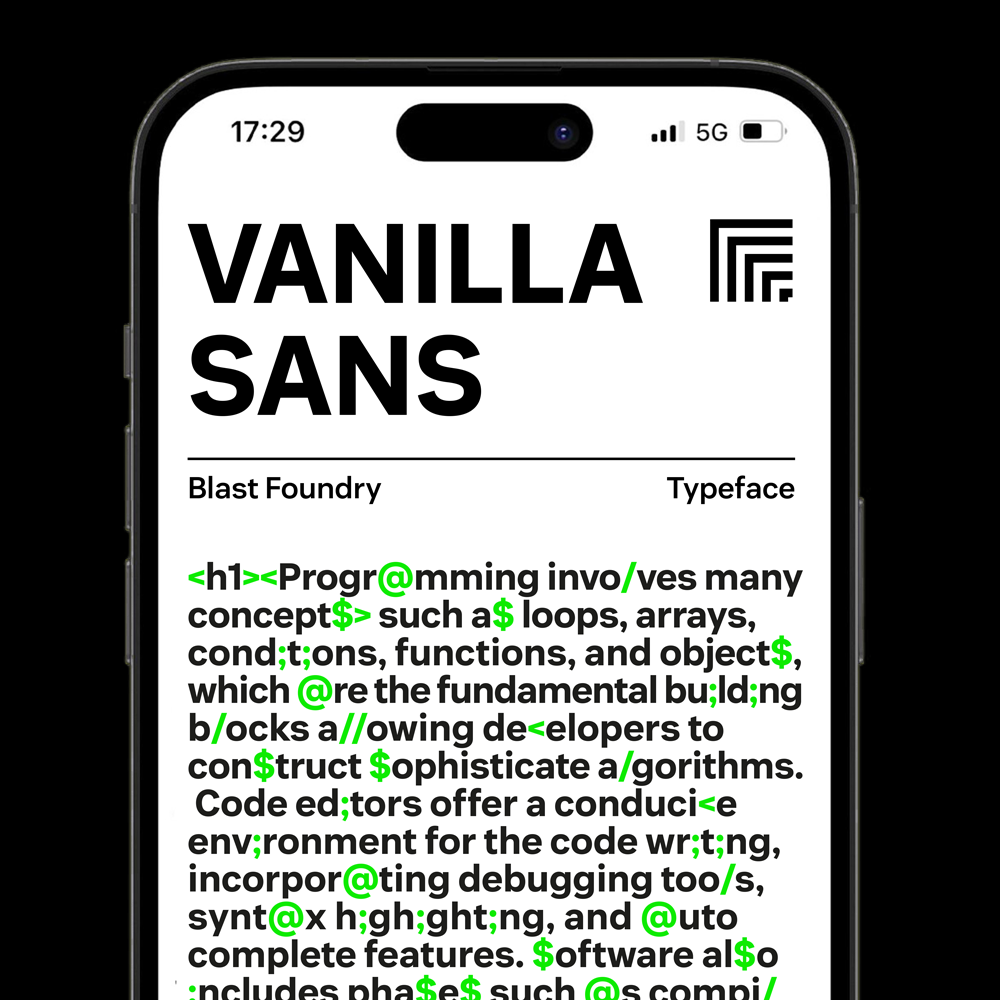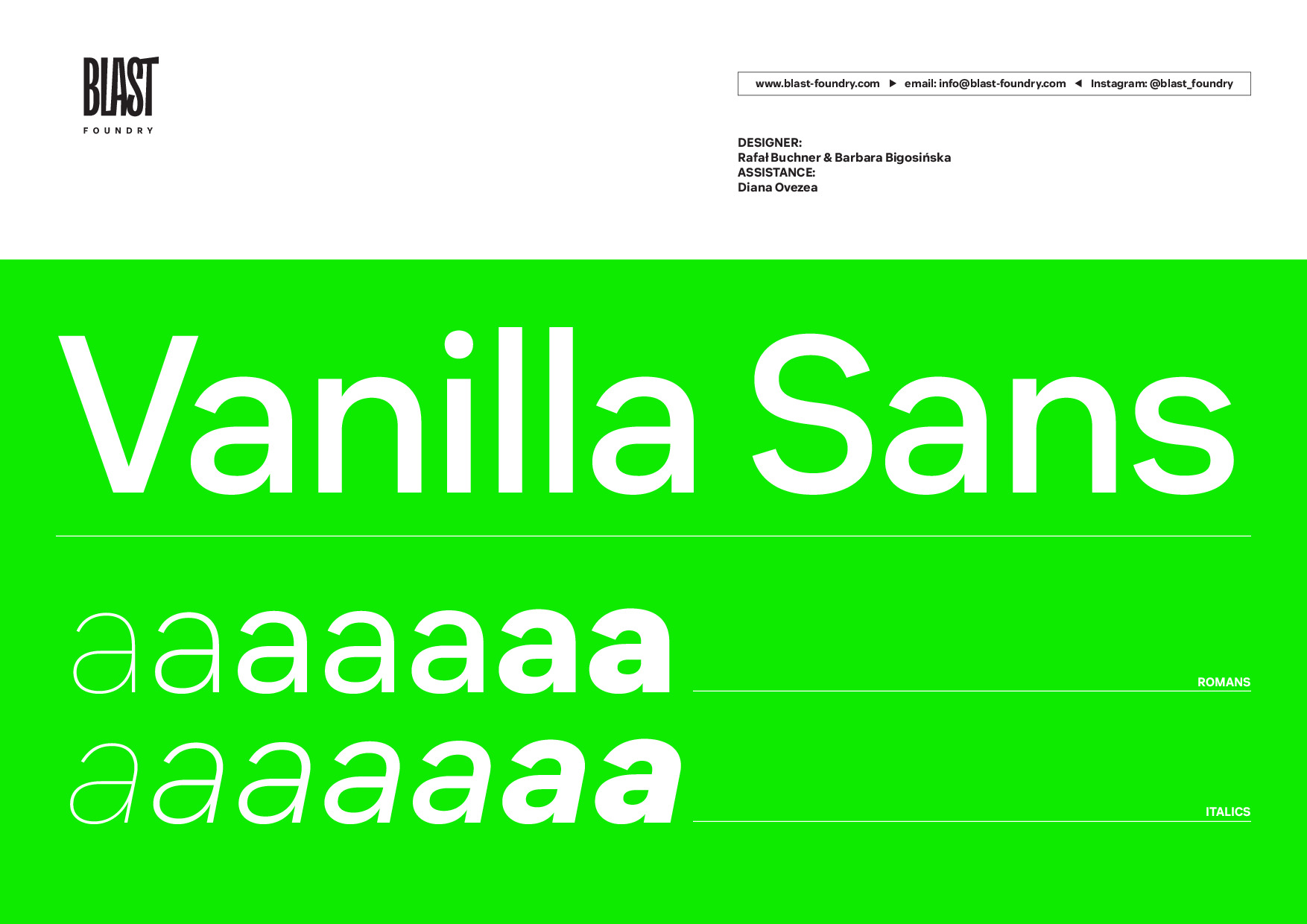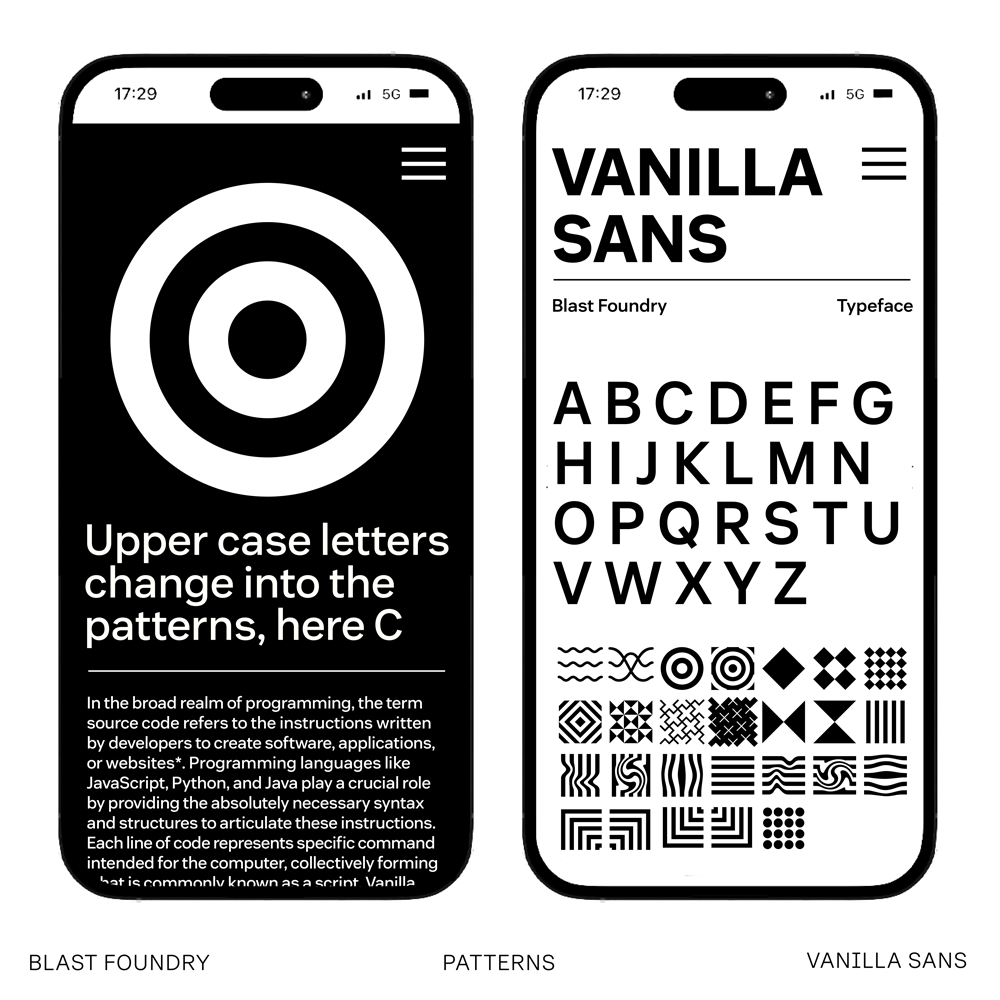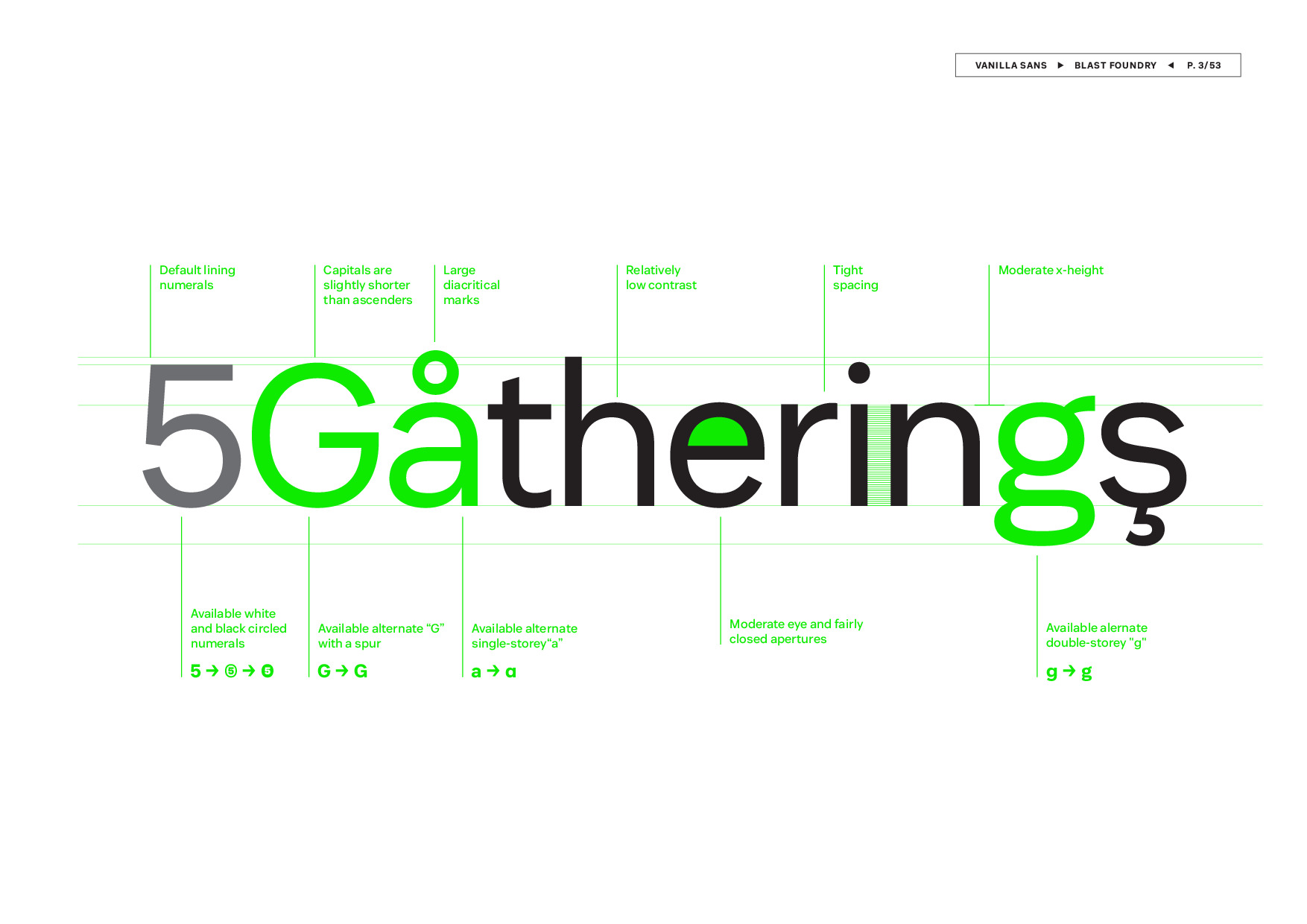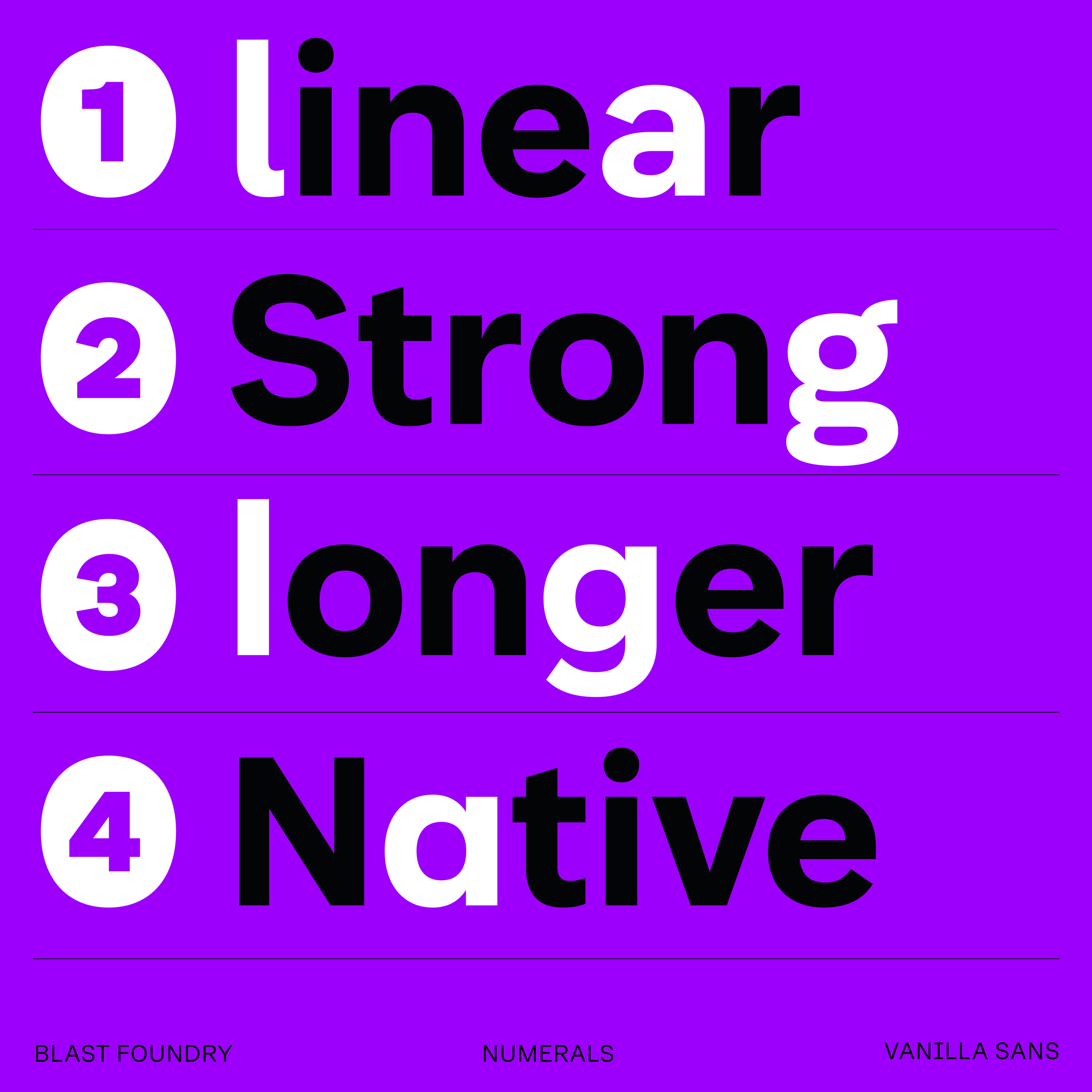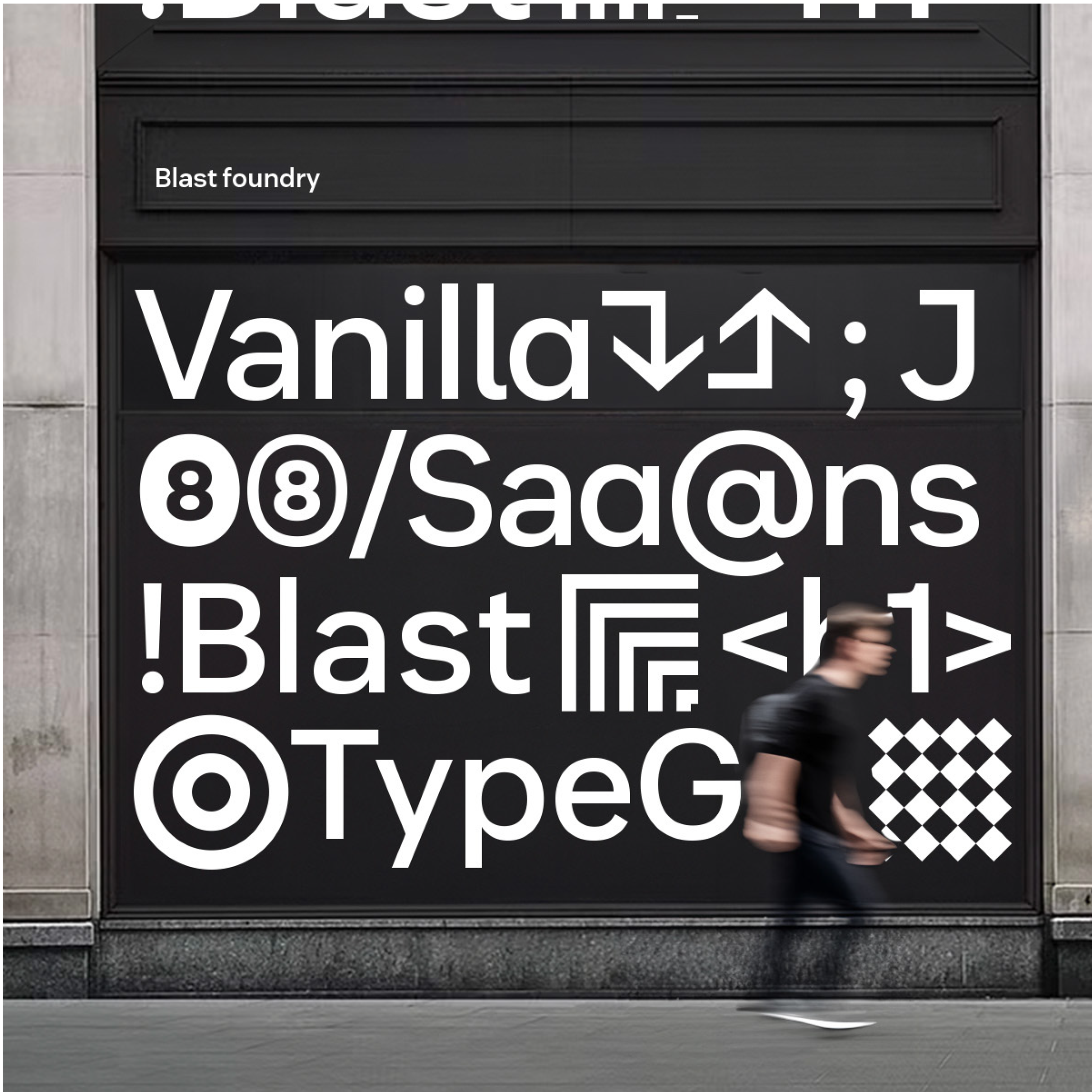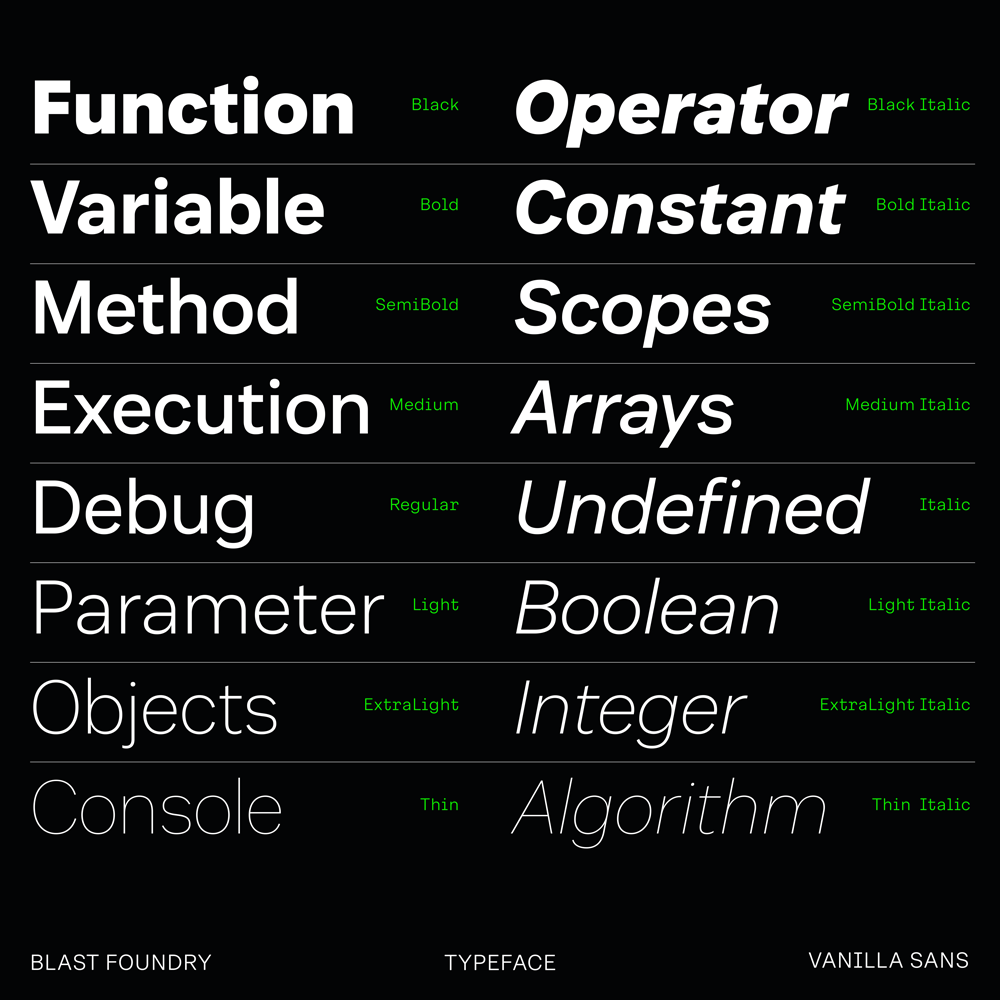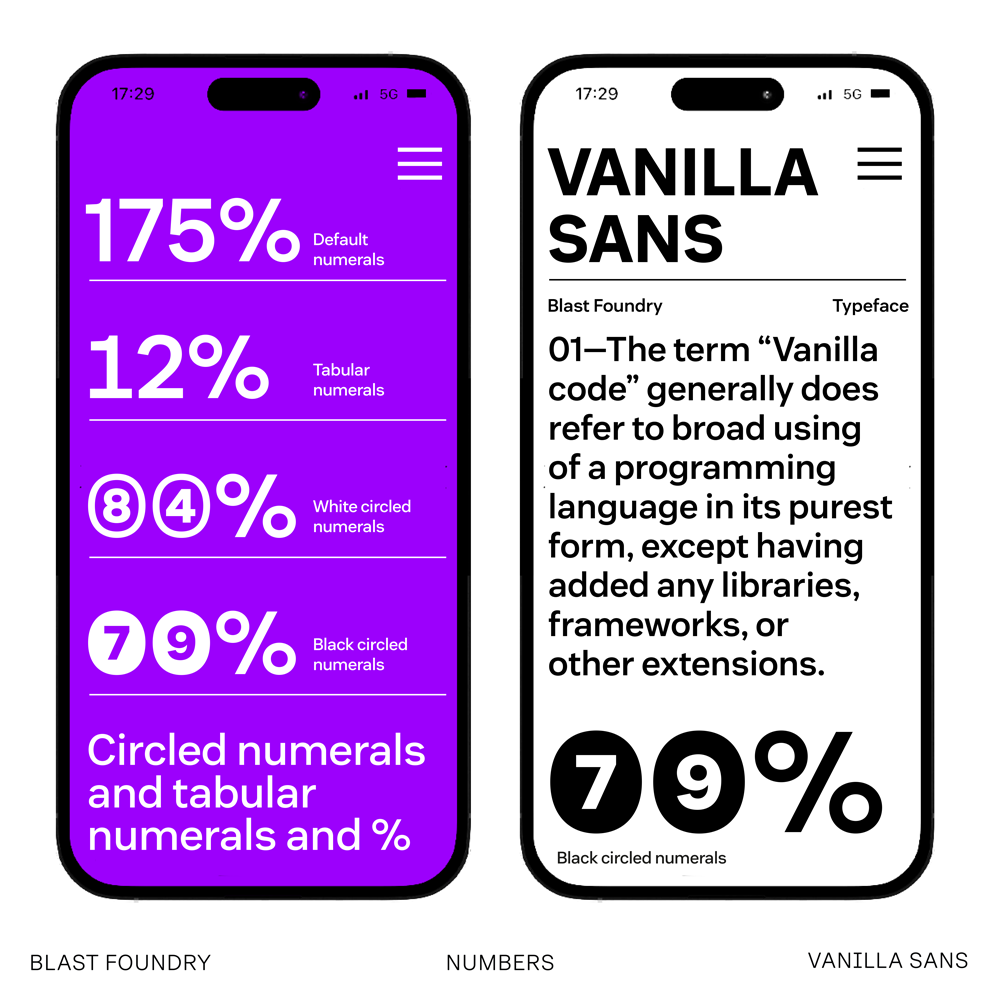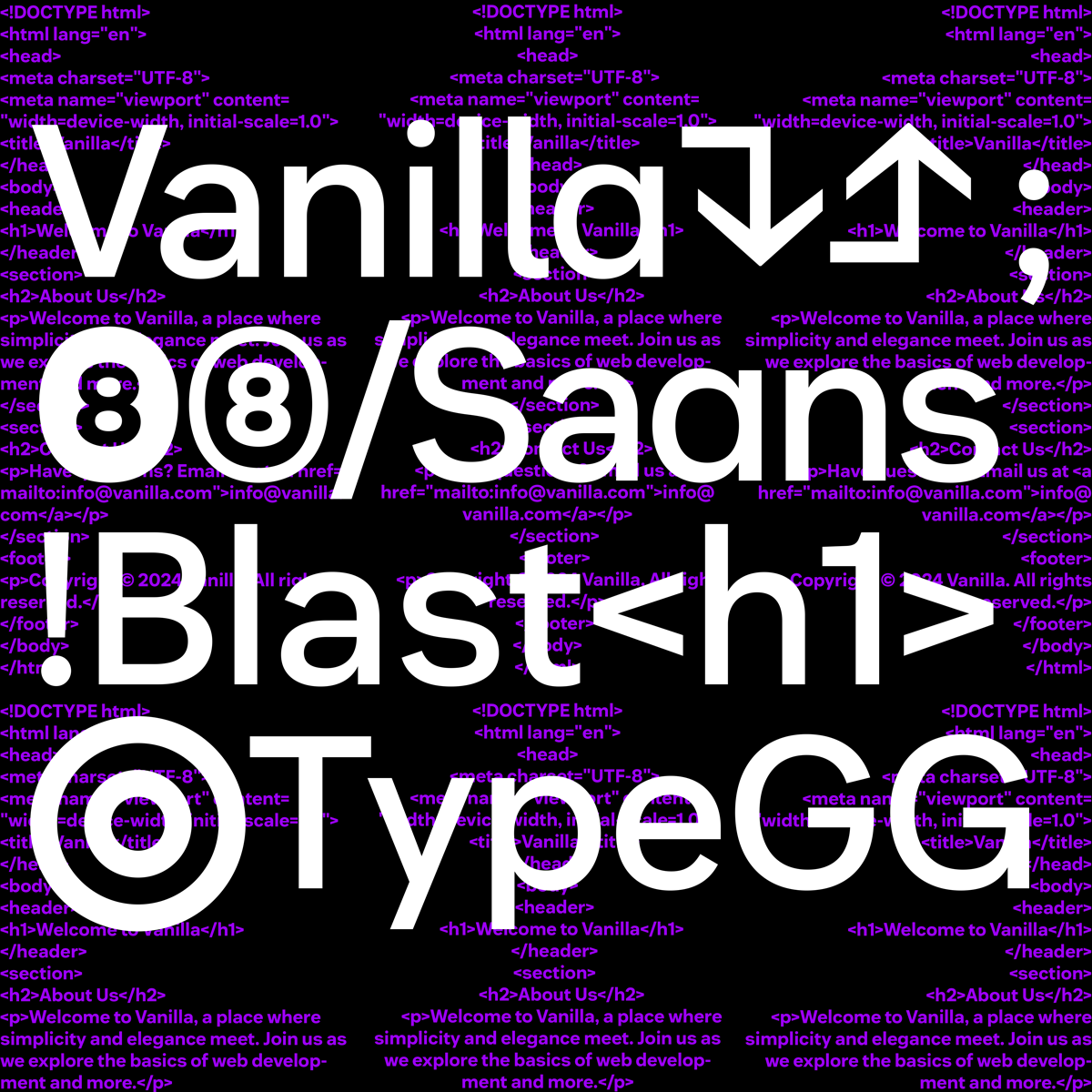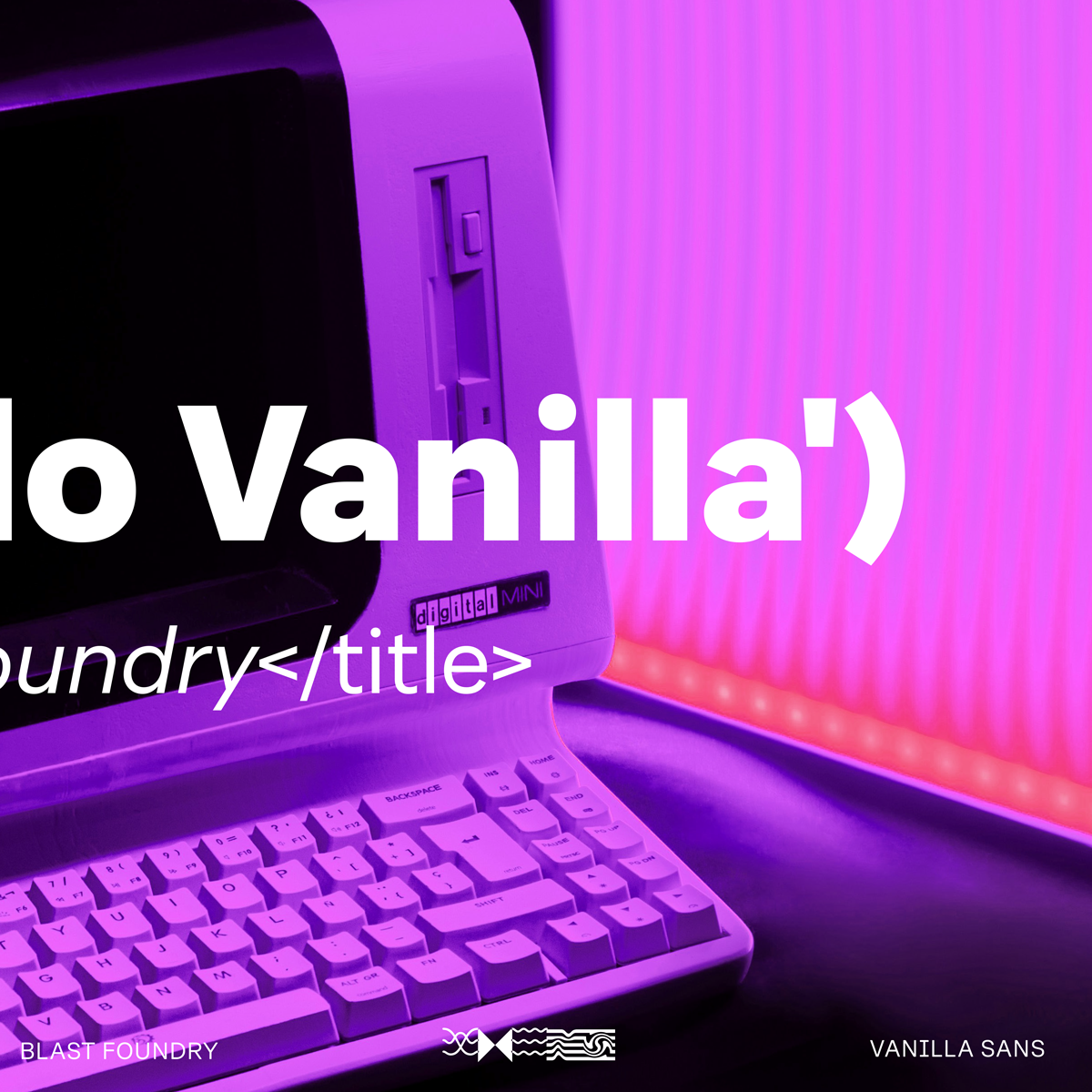
Vanilla Sans
Quietly expressive workhorse sans serif
Vanilla Sans started as a challenge to create the most “Vanilla” font possible — something neutral, useful, and unopinionated. But in the process, it became quietly expressive in all the right ways. Designed by Rafał Buchner and Barbara Bigosińska, it’s a geometric workhorse family with 8 weights and matching italics, built for designers who need range without excess. It blends in when it should, and holds its own when it counts.
Like the rest of the Vanilla collection, it comes packed with thoughtful tools: stylistic alternates (a, g, l, G, J), arrows, circled numerals, and a full A–Z set of pattern glyphs via Stylistic Set 7. These features make it easy to shape tone, build hierarchy, and adapt to a range of use cases, from brand identities and UI systems to long-form editorial. Vanilla Sans keeps your typography clean, calm, and capable.